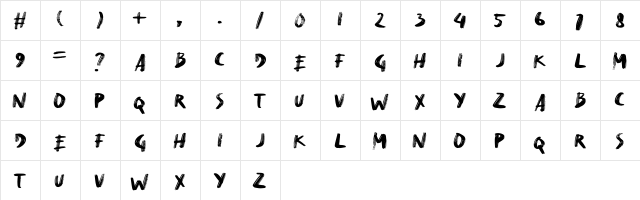
DryMakerXXS Bold
Design Context for DryMakerXXS Typeface
DryMakerXXS is a composed and adaptable typeface that performs quietly and consistently across a wide range of design contexts. The heavy weight commands attention and anchors typographic hierarchies.